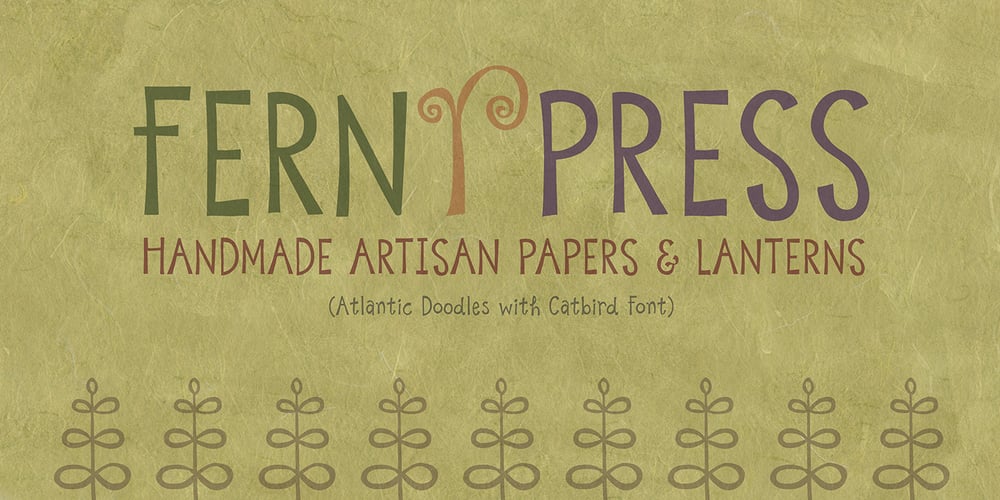
Atlantic Doodles
Atlantic Doodles font
Atlantic Doodles Font Family was designed by Amy Dietrich and published by Atlantic Fonts. Atlantic Doodles contains 1 styles and family package options. Like another popular “doodle”, Atlantic Doodles can really liven things up. Give your scrapbooking, invitations, gift tags and other creative endeavors the attention they deserve with this versatile collection of 52 hand-drawn swashes, flourishes, spots, and decorations. Designed to coordinate with your favorite Atlantic Fonts. Atlantic Doodles shown with Catbird, Suntea, Rowboat, Mountain Goat, Merci, Once, Trailmap, Farmstand and Steamboat.